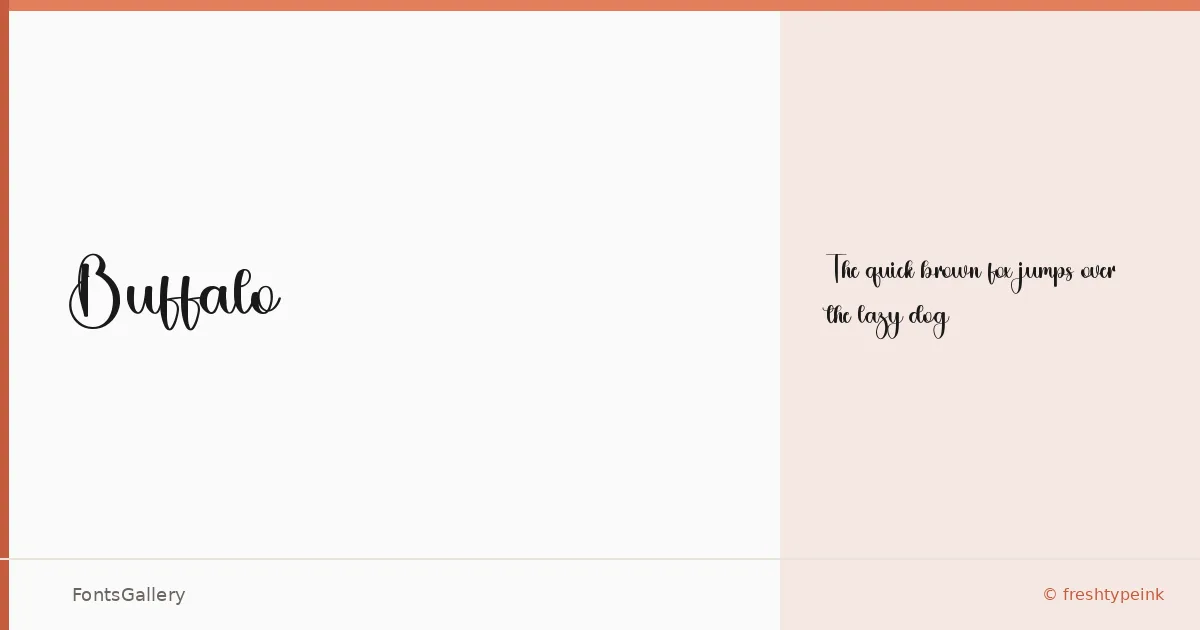
About Buffalo Font
There is a particular kind of grace in this script — the kind that shows up on wedding envelopes and boutique storefronts, where a single word needs to carry real feeling. Released by freshtypeink, Buffalo is a single-weight script with letterforms that lean into classic calligraphic tradition: flowing connections, restrained swashes, and a rhythm that reads as both polished and warm.
The mood sits squarely in elegant and romantic territory, with enough classical structure to keep it from feeling merely decorative. Available as a single Regular weight in TTF, OTF, and WOFF formats, the script is well-suited to situations where restraint matters — where the letters should feel handcrafted without calling too much attention to the hand. The Latin character set is clean and consistent throughout.
The obvious home for these letterforms is wedding stationery — invitations, place cards, envelope addressing — but the weight and confidence of the script also hold up in branding and logo work, and it brings the right tone to greeting cards that need a genuine sense of occasion. It pairs well with the editorial softness of Canela or ABC Arizona, the geometric clarity of Helvetica, and the distinctive character of Anglecia Pro or (AH) Manal when contrast is the goal.